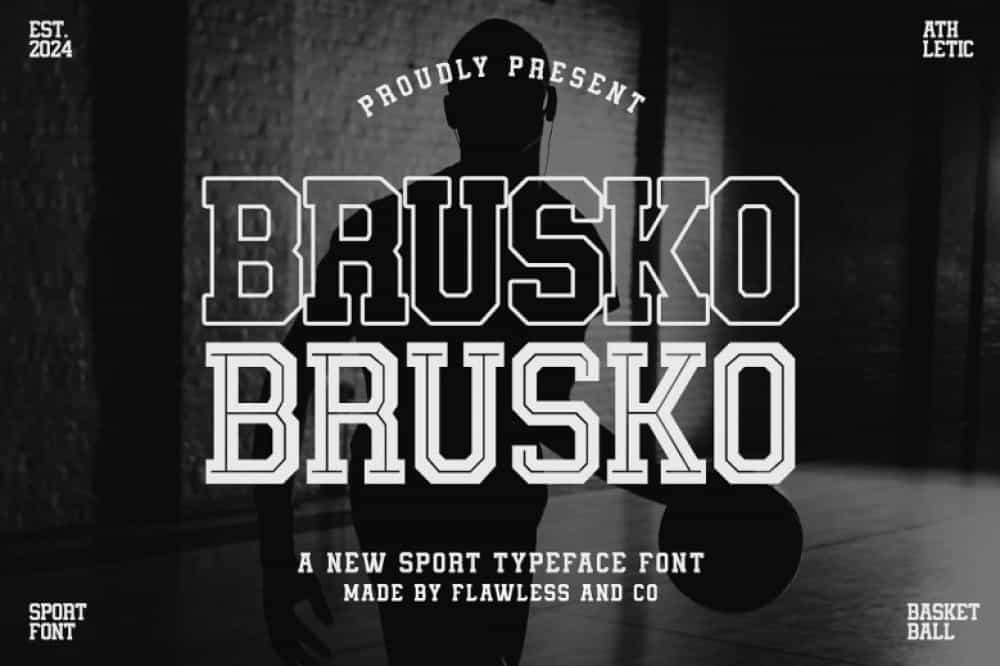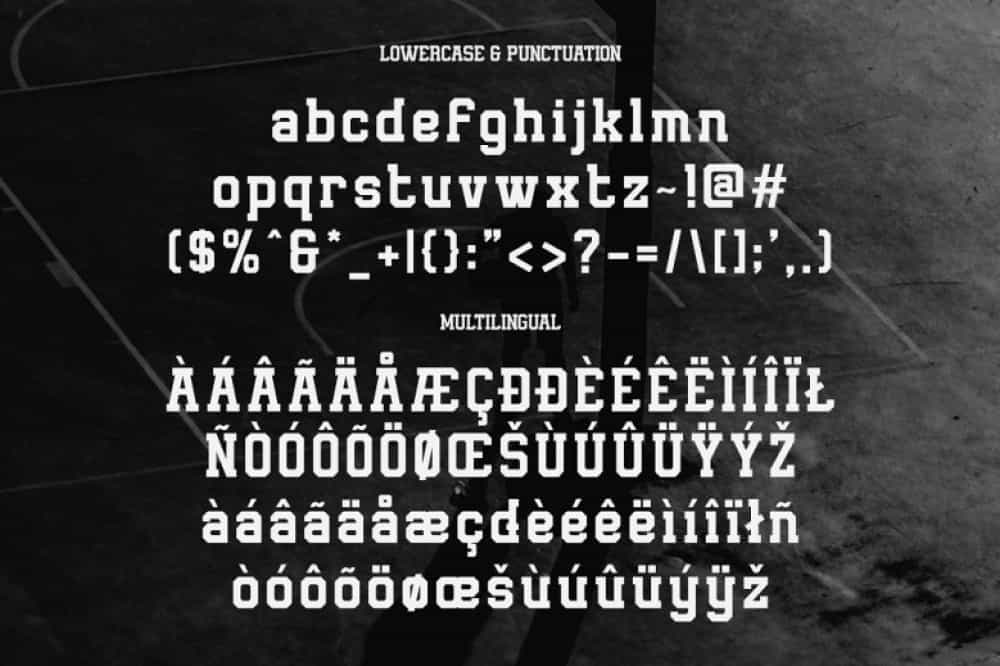
Brusko is a display font that was crafted with the conception of Basketball in mind and as such exhibits an energetic feel. Due to the strong and active lettering, Brusko is suitable for sports logos, sports t-shirts, banners, basketball tournaments, and many other purposes, and your designs will be powerful and dynamic.